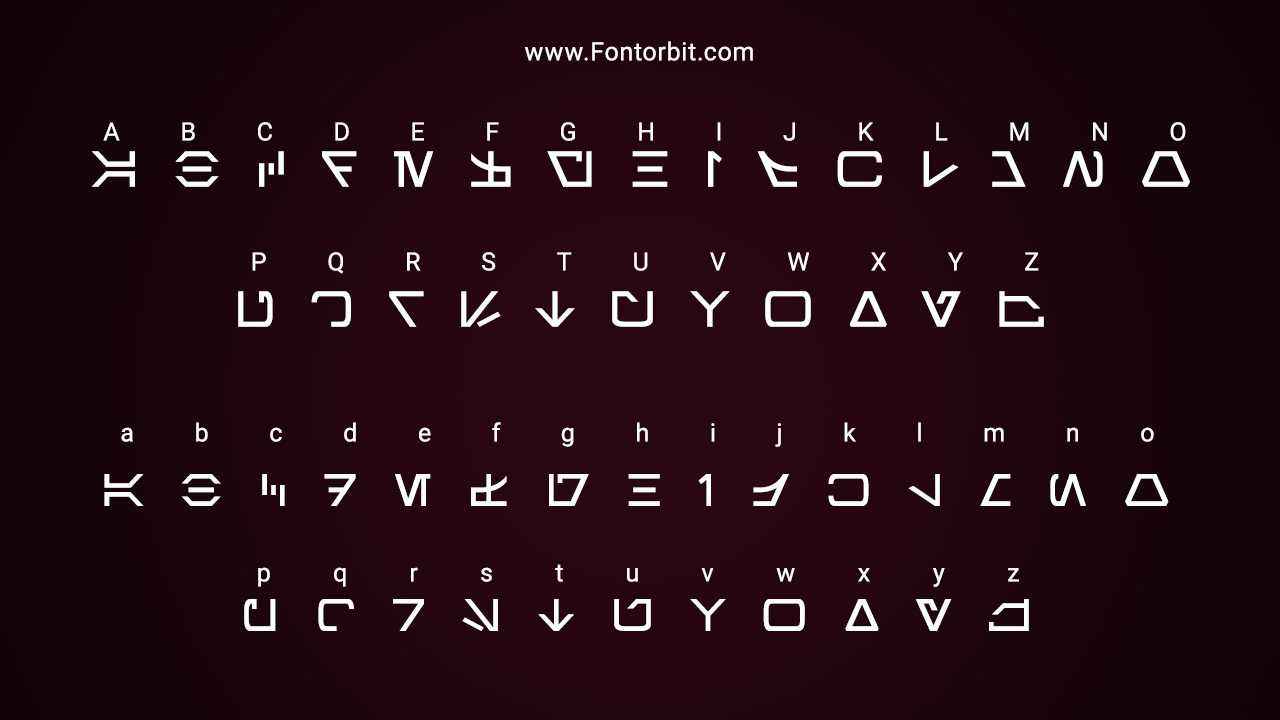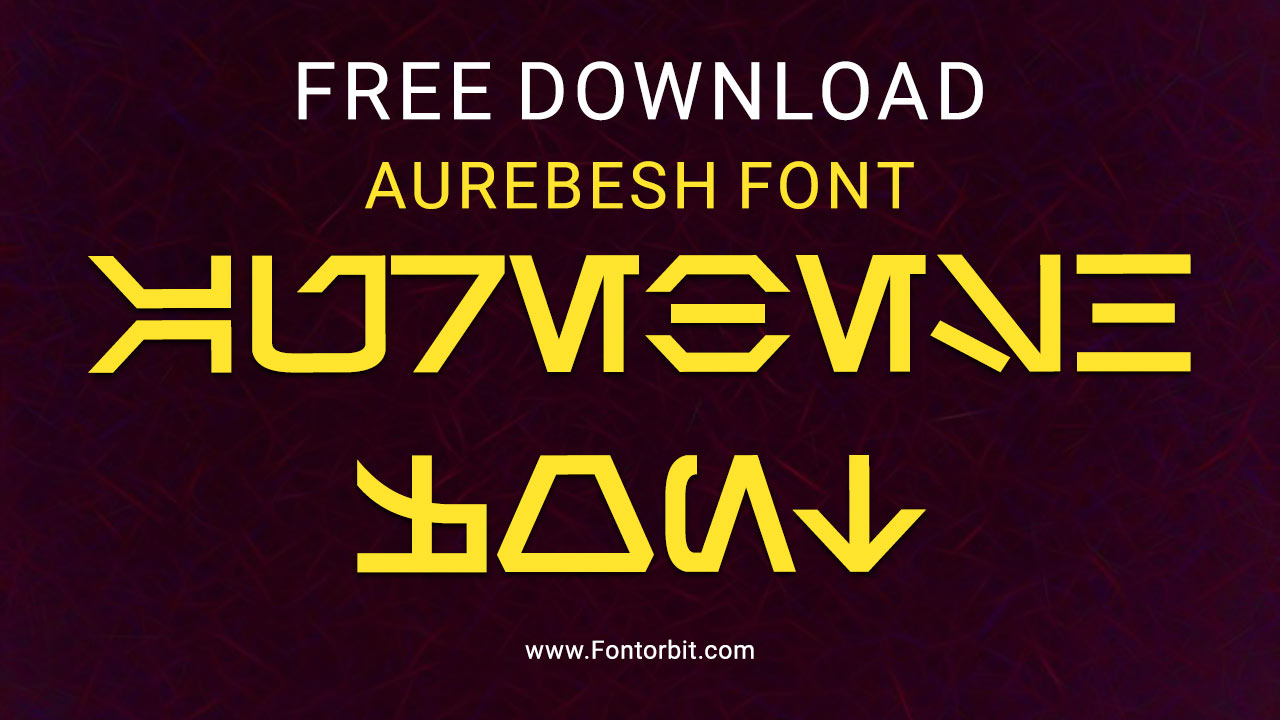
The Aurebesh font is a widely recognized typeface that replicates the iconic writing system used in the Star Wars universe. Developed to emulate the script seen throughout the Galactic Empire, it’s a popular choice for sci-fi and space-themed designs.
Created by Pixel Sagas, the Aurebesh font captures the essence of futuristic and extraterrestrial communication, making it ideal for fans of Star Wars and other sci-fi projects.
Aurebesh Font Family Includes
The Aurebesh font family offers a collection of distinct styles that can be adapted to different design projects, from digital graphics to event posters. Its sleek and alien design is perfect for creating an otherworldly atmosphere in your work. Here’s what the font family includes:
The Aurebesh font is ideal for any project that wants to channel the aesthetic of futuristic, galactic settings. Its unique characters are perfect for projects related to space, sci-fi, and fan culture. Use it in:
The Aurebesh font offers an exciting way to bring the Star Wars universe into your designs. Its distinctive, alien-style characters evoke a sense of mystery and space exploration, making it perfect for any project with a sci-fi theme.
Whether you’re working on fan art, posters, or merchandise, the Aurebesh font will give your designs that authentic, intergalactic feel.
1.What Is The Aurebesh Font?
It’s a font inspired by the Star Wars franchise, replicating the fictional writing system used in the films.
2.What Font Family Does Aurebesh Belong To?
The Aurebesh font is part of a standalone family that includes several styles like regular, bold, italic, and bold italic.
4.Where Can I Use The Aurebesh Font?
It’s best used for sci-fi-themed projects, especially those related to space and alien design.